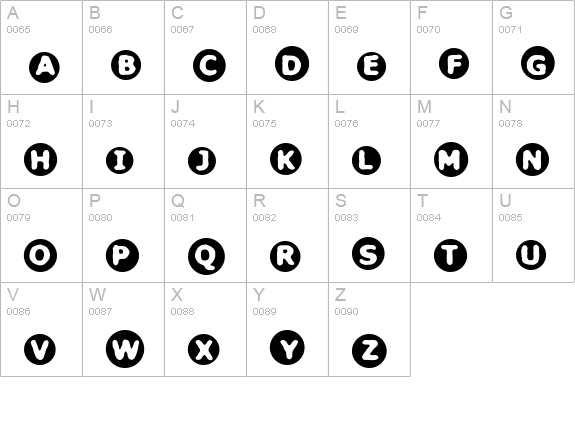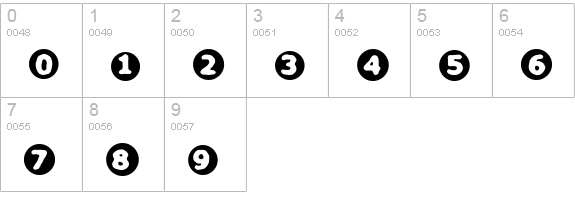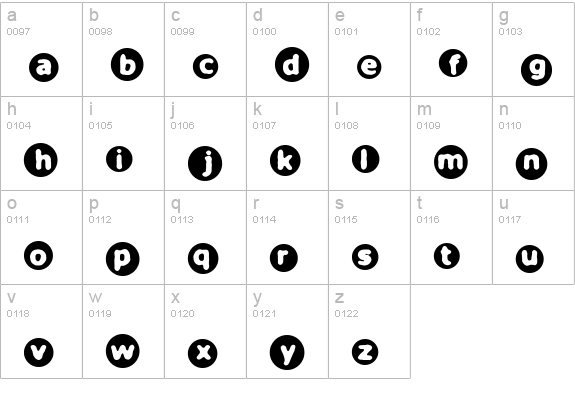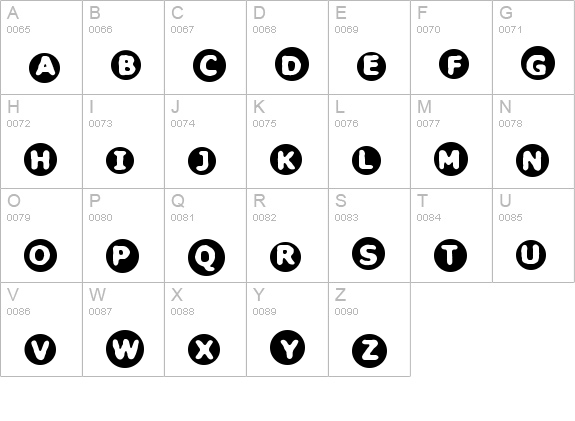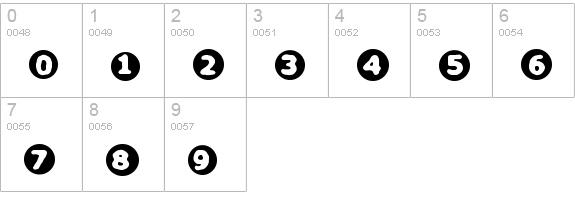
Circulate (BRK) Font Details
Circulate (BRK) font is a modern and stylish typeface designed to make your designs stand out. With its sleek and futuristic appearance, Circulate (BRK) is perfect for various design projects, including logos, posters, and social media graphics. The font features clean lines and rounded edges, giving it a contemporary and eye-catching look. What sets Circulate (BRK) font apart is that it is available for free download at FontsMarket.com. This means that you can easily access this versatile font and use it in your projects without any cost. Whether you are a designer looking to add a unique touch to your work or a business owner in need of a fresh look for your branding, Circulate (BRK) font is a fantastic choice. Download it today and elevate your designs with this stylish and free typeface.